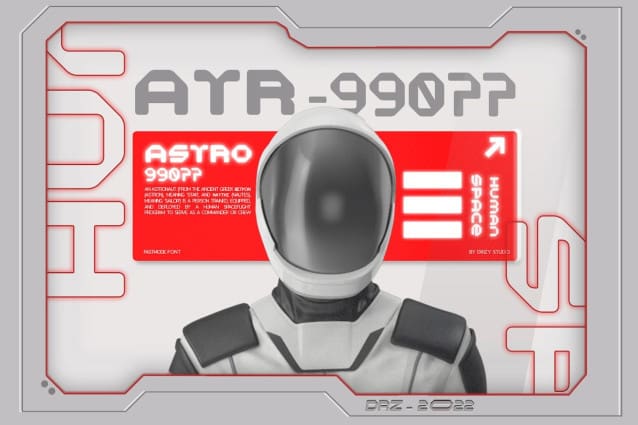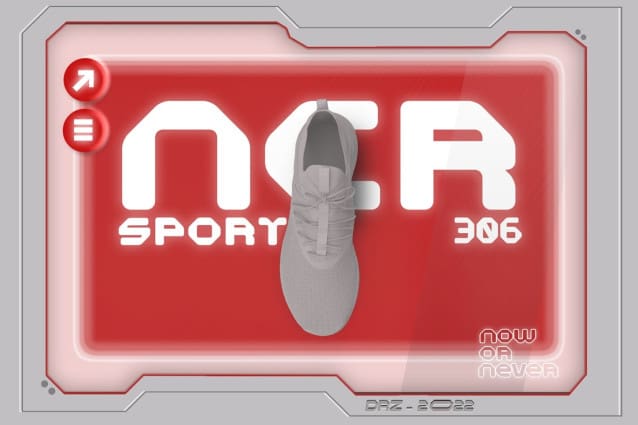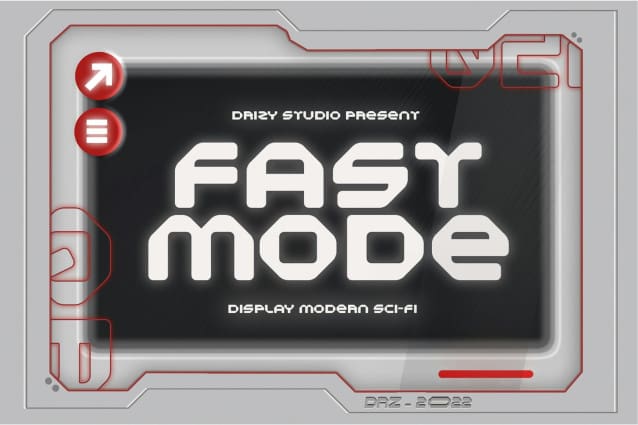
Fastmode Futuristic Font
Fastmode Futuristic Font, is a modern sci-fi font from studio Drizy. Offering all the basic styles, you’ll need a particularly modern Theme project.
Quick Mode Features: All Caps Number and Punctuation Multilingual